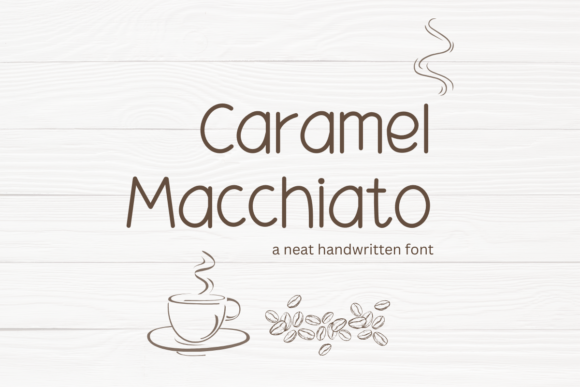
Introducing Caramel Macchiato Font, a captivating addition to your font collection! Created by chiraa.design, this script font is the perfect blend of simplicity and elegance, making it ideal for all your digital note-taking needs.
With its neat and handwritten style, Caramel Macchiato Font adds a touch of authenticity to any project. Whether you're using it in Procreate, blog posts, logos, branding, or digital planners, this font will elevate your designs to new heights.
Imagine the possibilities with Caramel Macchiato Font! Let your creativity flow as you create stunning invitations, greeting cards, and photo albums. Its versatility knows no bounds, making it an essential tool for any designer or creative individual.
What sets Caramel Macchiato Font apart is its ability to bring warmth and personality to your creations. Its charming strokes and unique flair evoke emotions that resonate with your audience. This font adds that special touch that captivates and engages the senses.
Embrace the art of handwritten beauty with Caramel Macchiato Font. Say goodbye to generic fonts and embrace the individuality that this font brings to your projects. Stand out from the crowd and leave a lasting impression with its eye-catching appeal.
Unlock a world of endless possibilities with Caramel Macchiato Font. Its seamless integration into your workflow will enhance your productivity and allow you to create stunning designs effortlessly. Let your imagination run wild as you explore the vast potential this font offers.